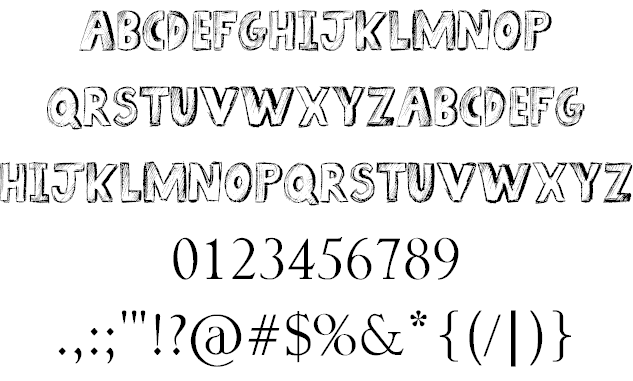
Free Sketch Book Font
We're glad to feature this gorgeous free sketch book font. Font Space has created this amazing and beautiful typeface. Showcase your designs like a graphic design pro by adding a new touch with this fancy font.